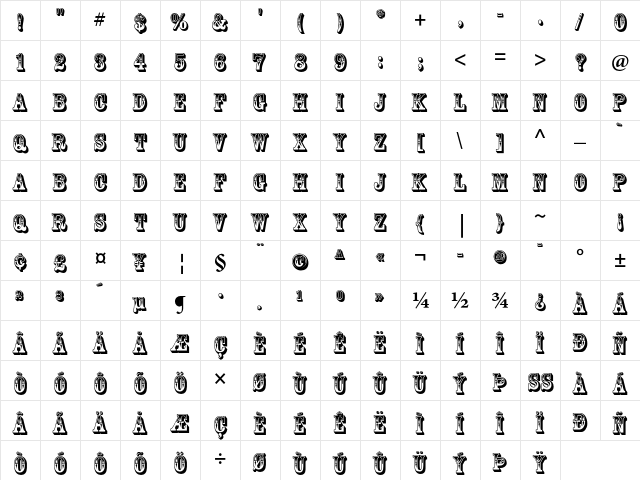
Rosewood Std Regular
| Designer | Kim Buker Chansler, Carl Crossgrove, Carol Twombly |
Design Context for Rosewood Std Typeface
Rosewood Std taps into classic Western woodtype traditions — bold, characterful, and impossible to ignore.
A natural fit for craft spirits, ranch branding, rodeo events, and Americana-inspired design work.
Font Pairing: Combine Rosewood Std with a simple slab or neutral sans — period-accurate companions reinforce the vintage feel without competing for attention.
Pro Tip: Use Rosewood Std for short, impactful bursts of text — it shines in poster headlines and product names rather than extended copy.